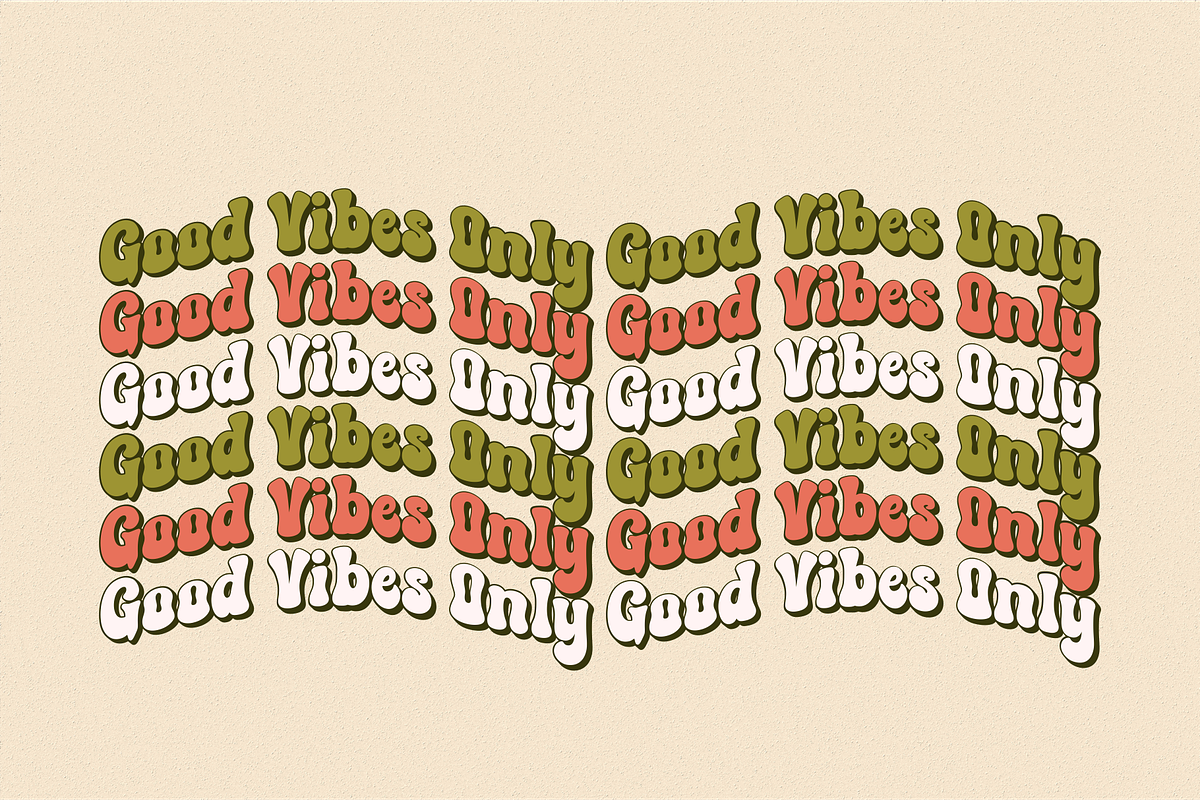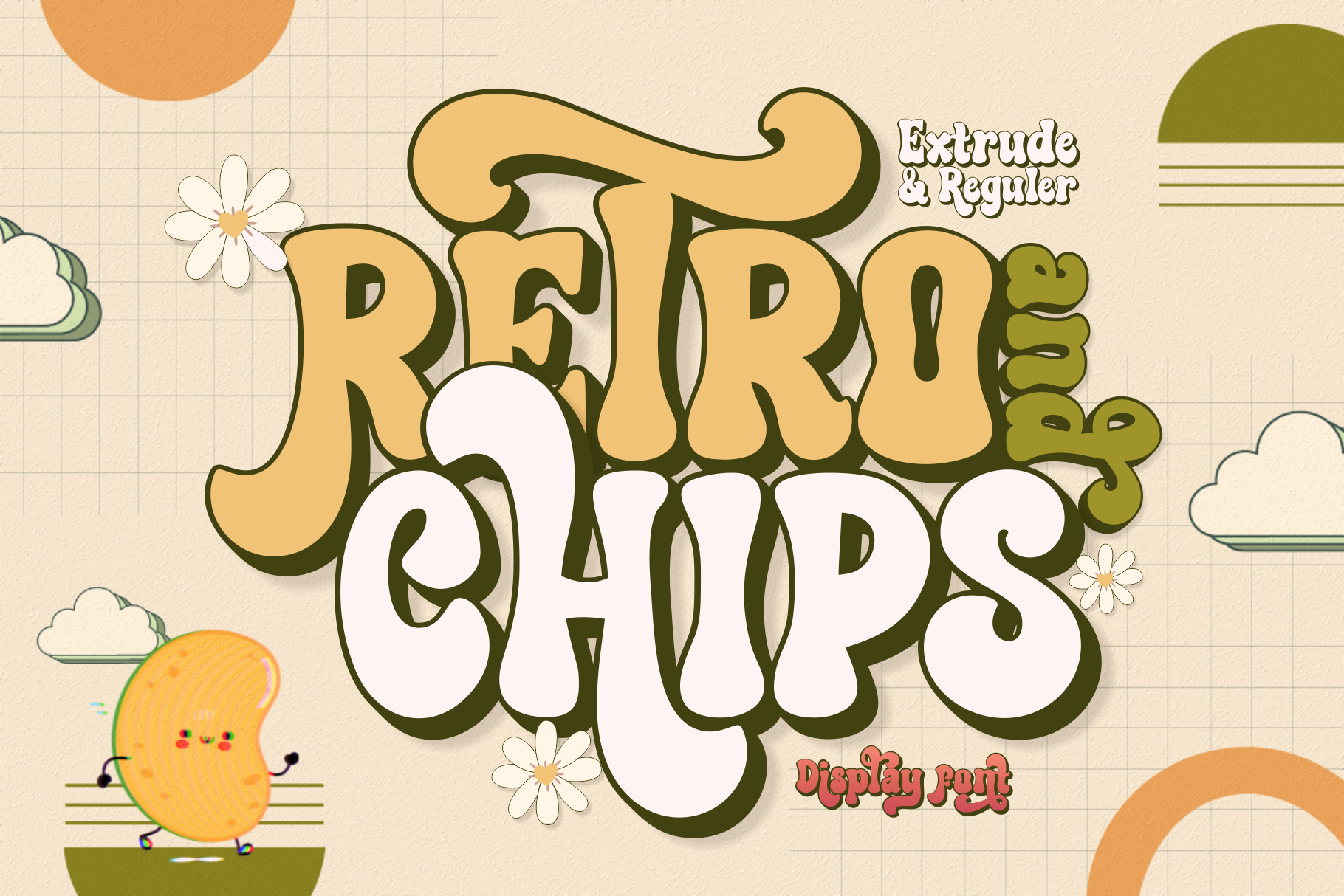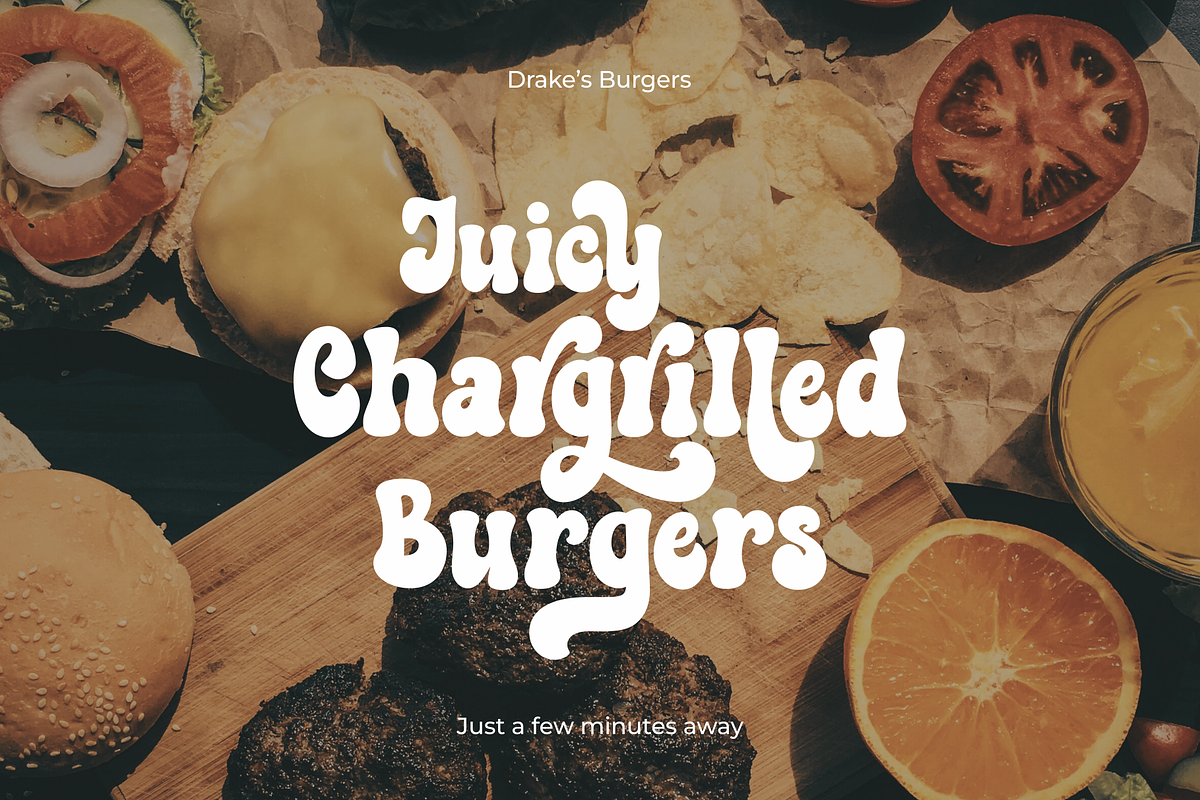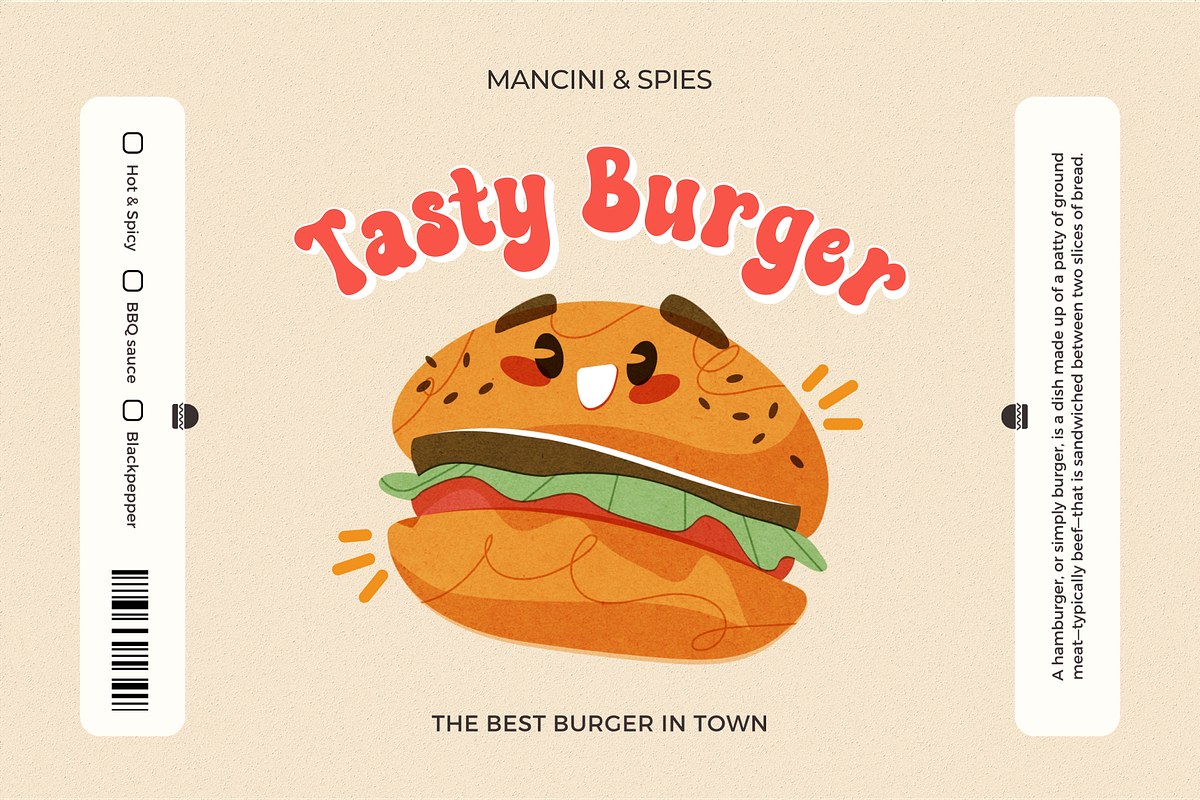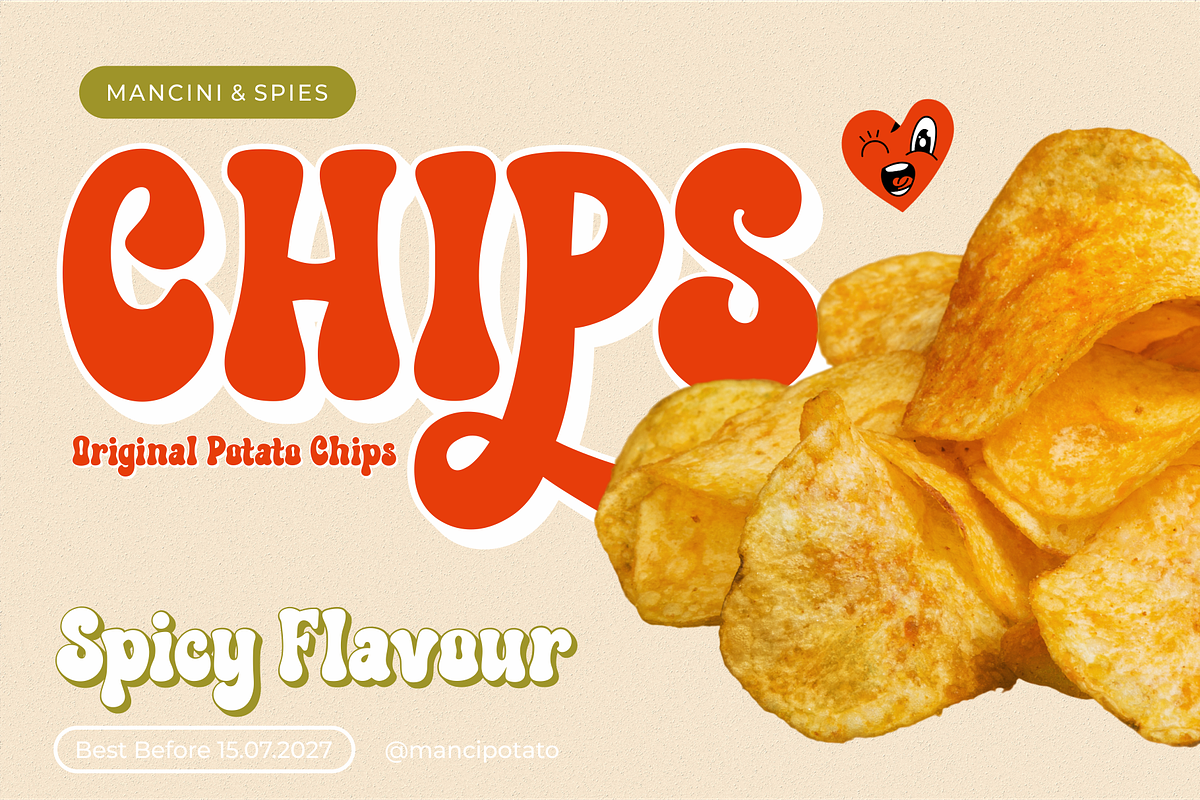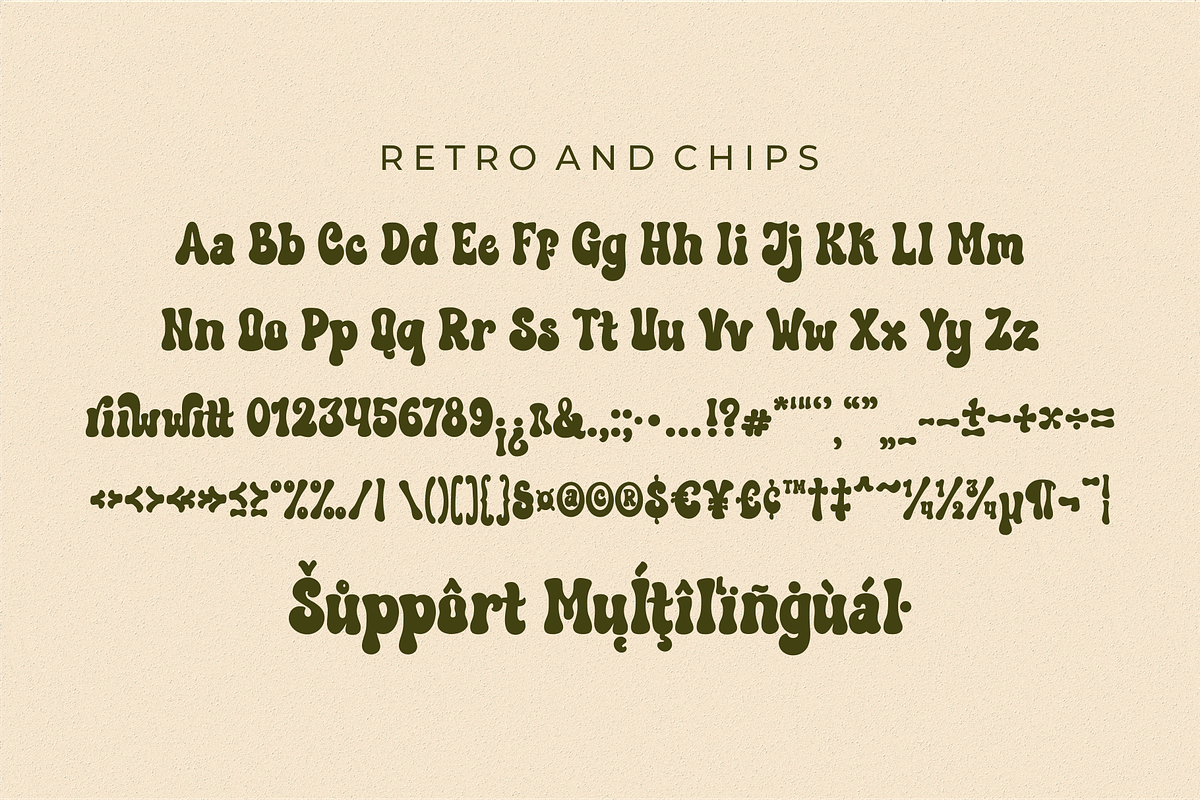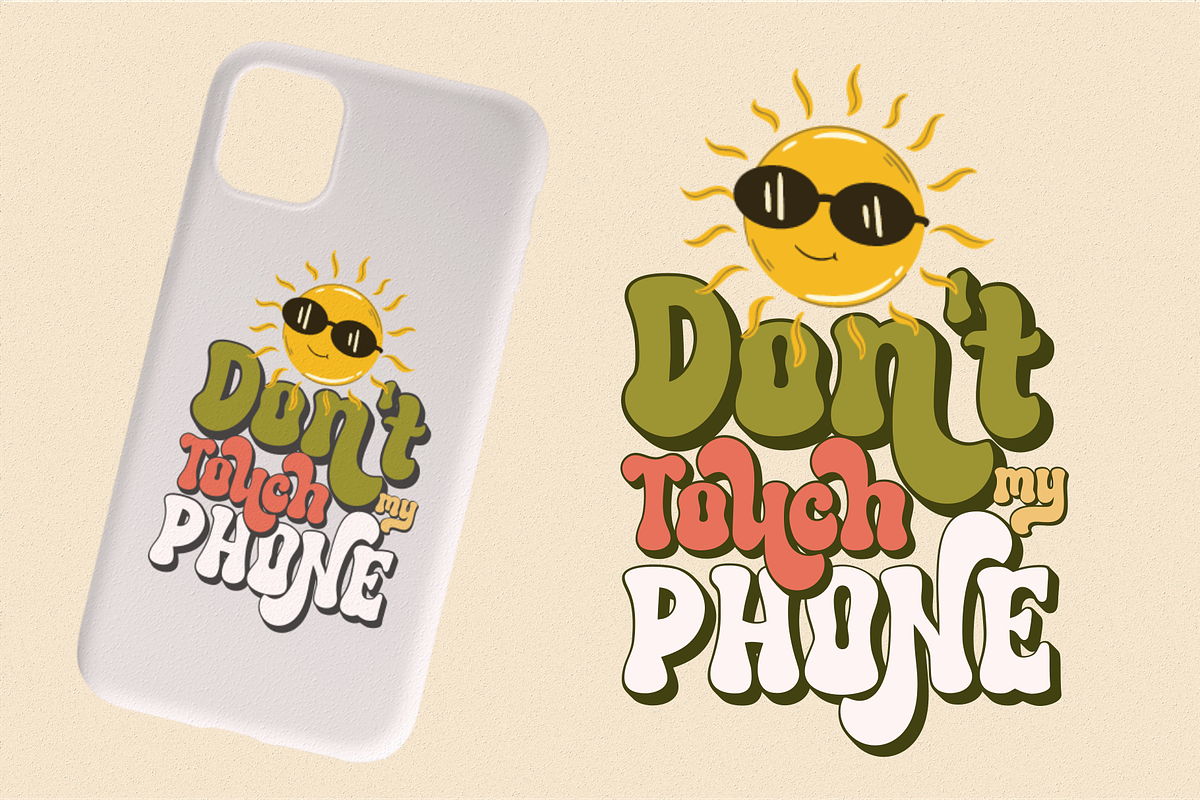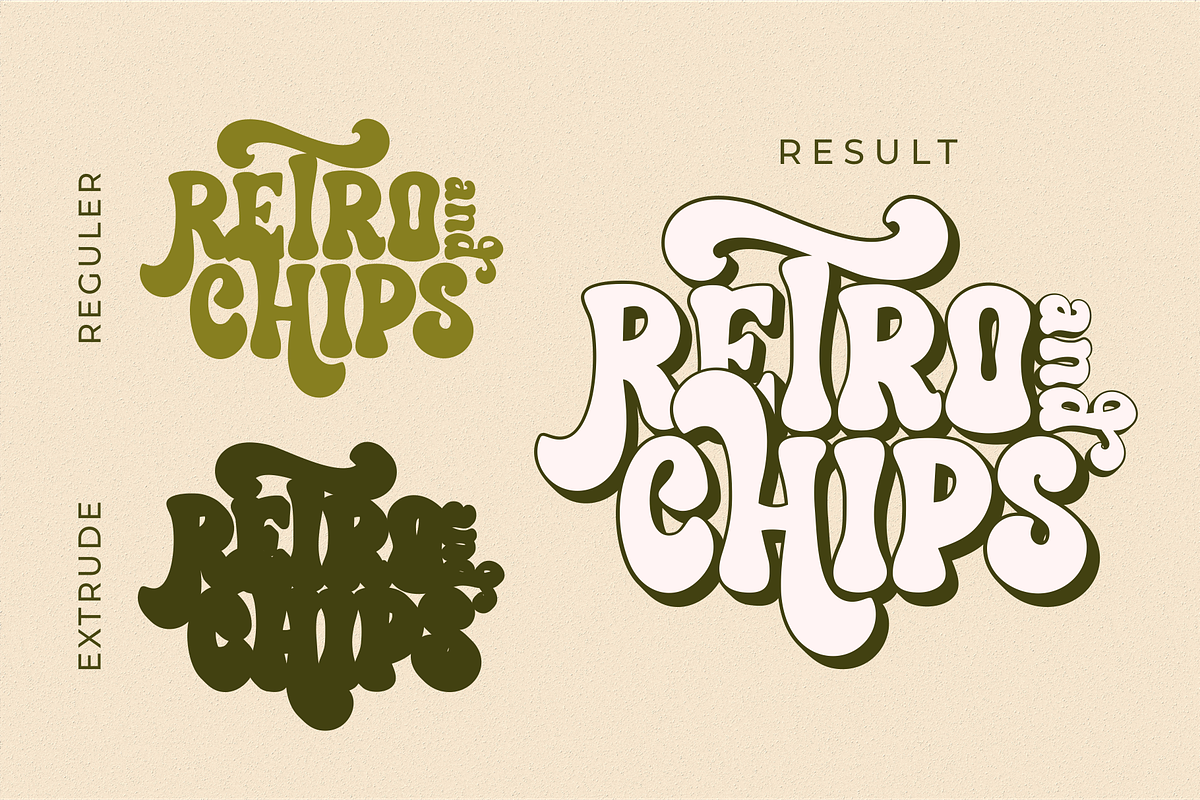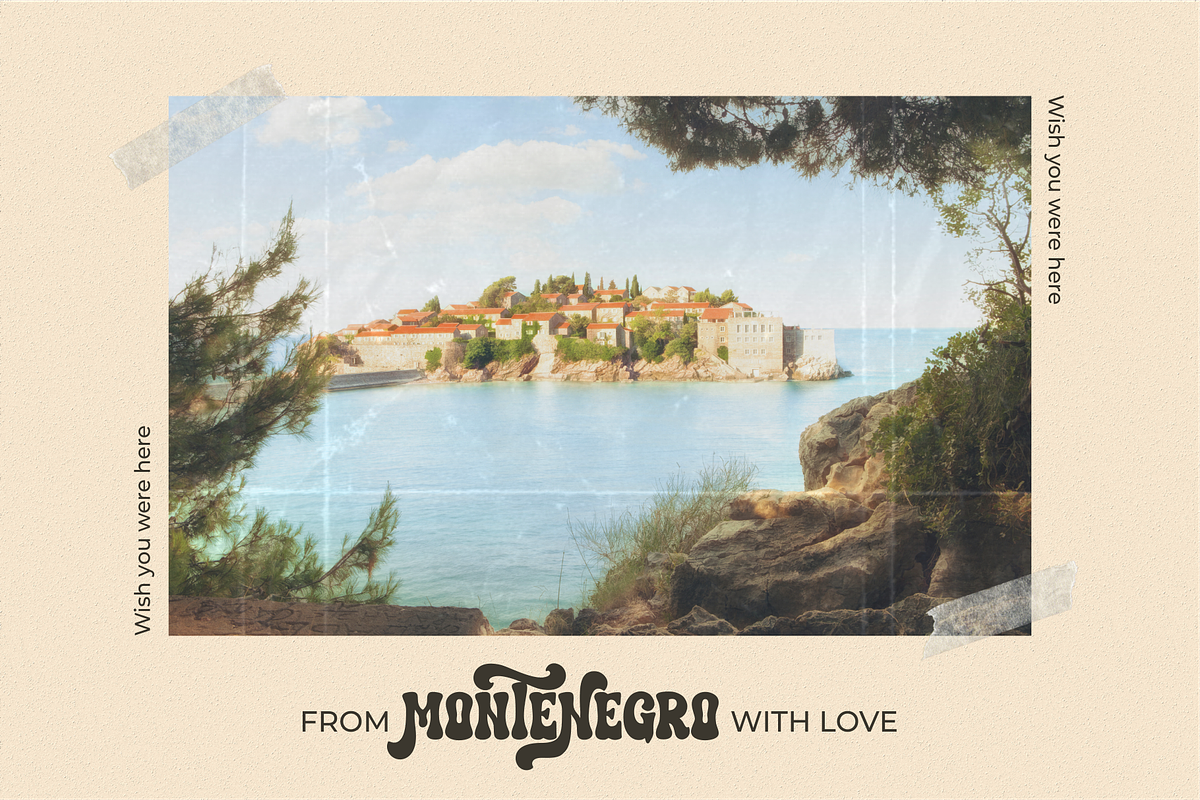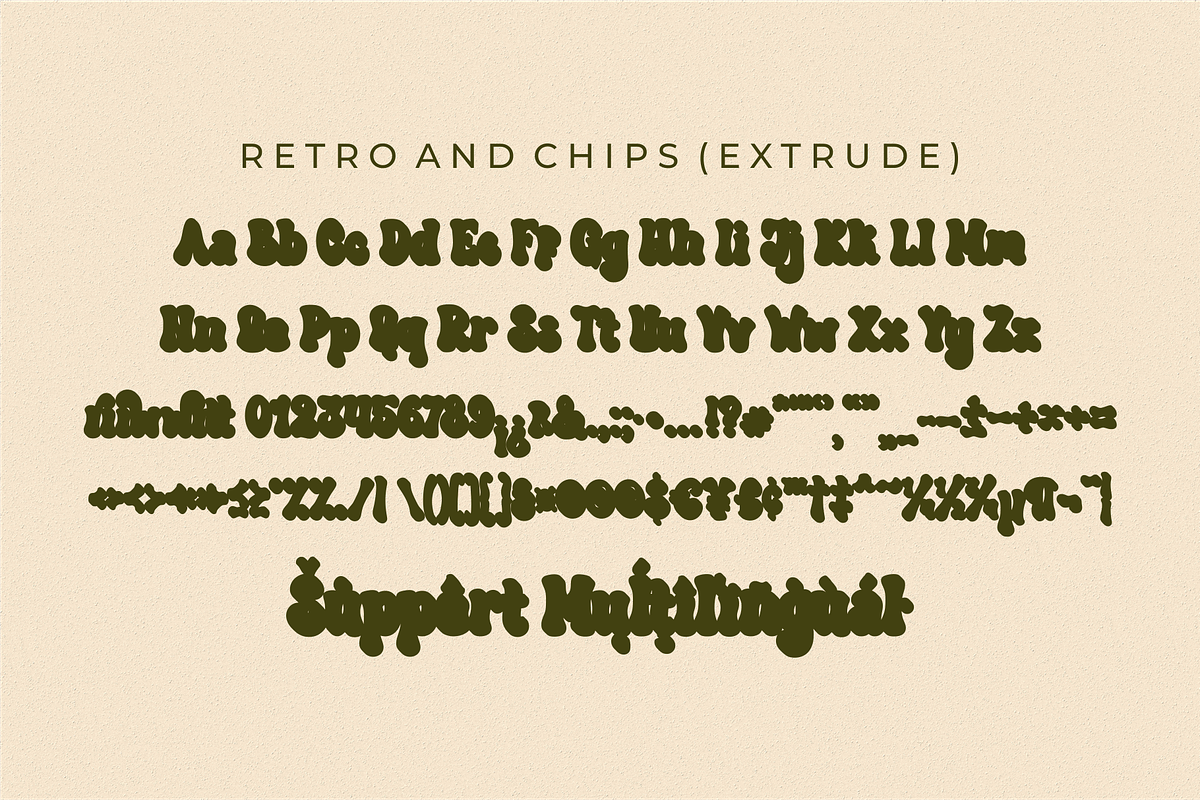
Retro and Chips - Retro Display Font
Retro and Chips is the perfect typographic tool to infuse a dose of retro magic into your creative projects. Its alternates, ligatures, and extruded versions provide endless possibilities for crafting visually captivating designs that pay homage to the past while staying fresh and exciting in the present.
- A set of uppercase and lowercase glyphs
- Number, symbol, and punctuation
- Extrude Version